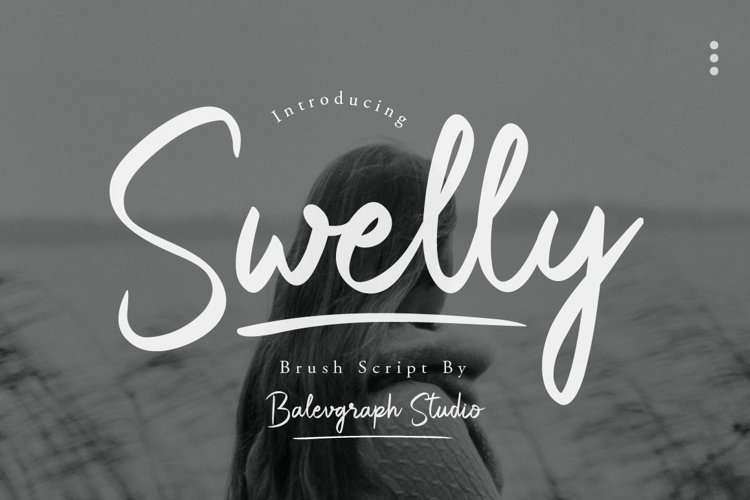
Swelly Brush Script
Swelly feels equally beautiful and dainty. It looks ravishing on wedding invitations, thank you cards, quotes, greeting cards, logos, business cards and every other design which needs a handwritten touch.